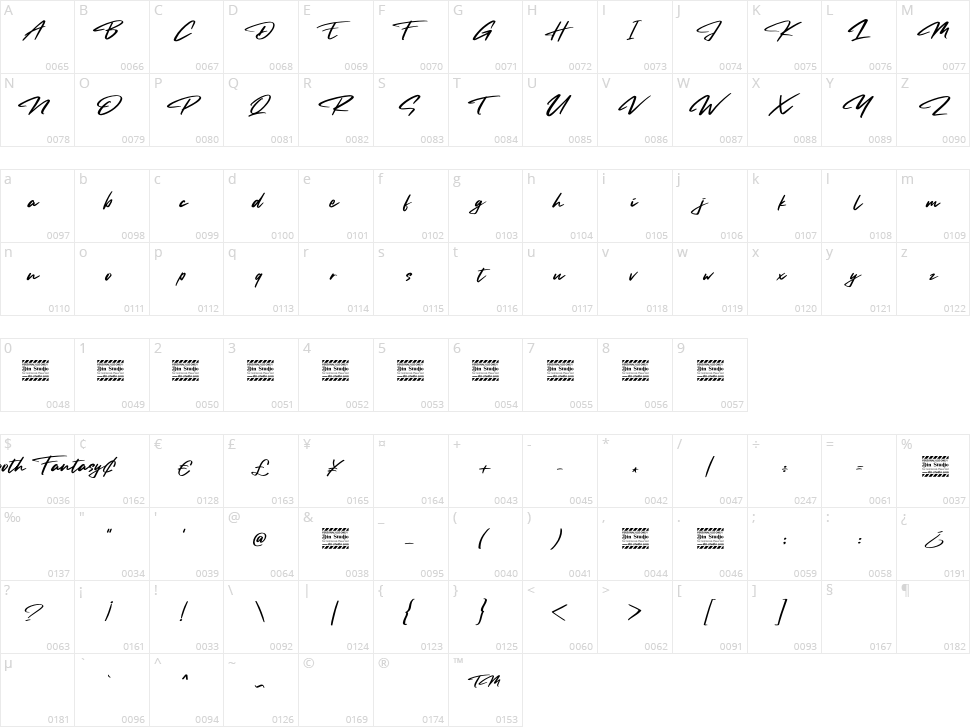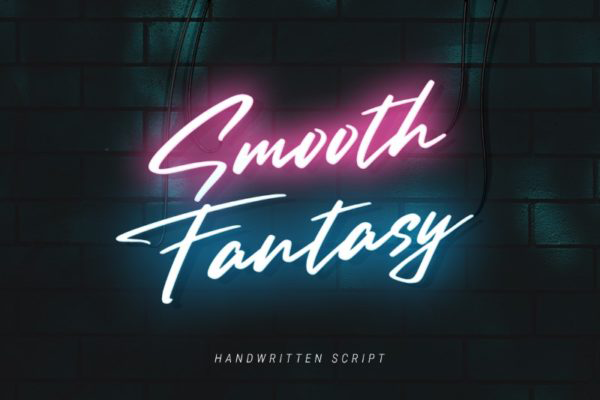
Smooth Fantasy
Introducing Smooth Fantasy Script for your amazing project. With a chic and natural handwritten style, it
brings a beautiful typeface. Smooth Fantasy is best used for logotype, branding, quotes, and ect
Introducing Smooth Fantasy Script for your amazing project. With a chic and natural handwritten style, it
brings a beautiful typeface. Smooth Fantasy is best used for logotype, branding, quotes, and ect